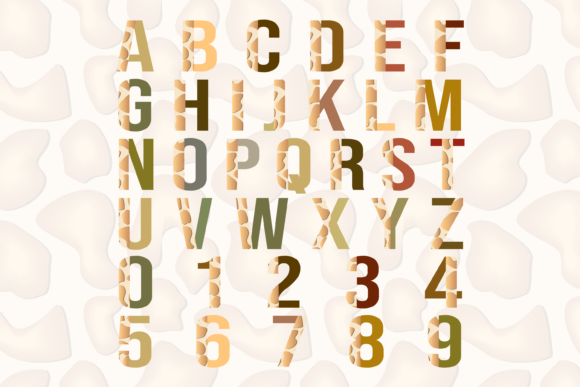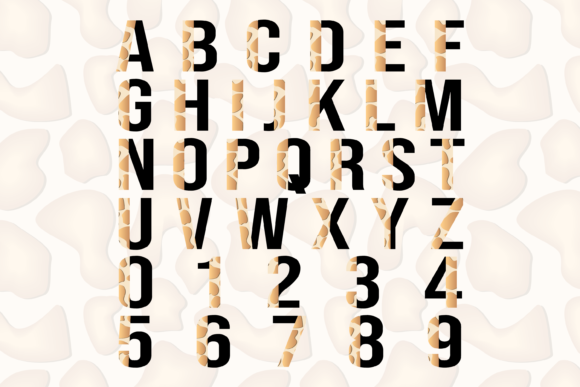
The Giraffe Font: A Colorful Companion for Your Creative Projects
Have you ever been in the middle of a design project, and suddenly, you just can’t find the right font? I recall a particularly frustrating moment when I was working on a custom greeting card for a friend’s birthday. I wanted something playful, yet elegant, but every font I tried seemed to fall flat. That’s when I stumbled upon the Giraffe Font, and it completely transformed my design. In this article, we’ll dive into the world of Giraffe Font, exploring its features, uses, and some helpful tips and tricks.
I’ve had the pleasure of working with the Giraffe Font, and here’s my honest review:
- ✨ Beautiful color options: The Giraffe Font comes in two stunning styles – black and color. The color version is especially gorgeous, adding a pop of vibrancy to any design.
- ✅ Perfect pairing: The duo styles are designed to complement each other perfectly, making it easy to mix and match for a unique look.
Now, let’s talk about a few quirks:
- 🤔 Learning curve: If you’re new to color fonts or OpenType features, it might take some time to get familiar with the font’s capabilities.
Exploring OpenType Features: Glyphs and Stylistic Alternates
One of the exciting features of the Giraffe Font is its support for OpenType features. Here’s a brief overview:
- Glyphs: These are special characters that can add visual interest to your text. In the Giraffe Font, you can access glyphs using the glyph panel in Adobe applications.
- Stylistic alternates: These are alternative characters that can be used to create a unique look. In the Giraffe Font, you can access stylistic alternates using the font’s built-in features.
The Designer Inspiration Behind Giraffe Font
The Giraffe Font was designed with the creative crafter in mind. The designer wanted to create a font that would add a touch of elegance and playfulness to any design project. Inspired by the majestic giraffe, the font’s unique style and color options are sure to delight designers and crafters alike.